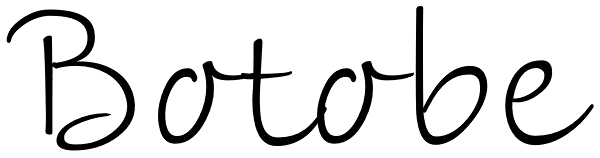
Botobe
Botobe is a new script from Swedish type designer Bo Berndal and the T4 font foundry. Botobe is a playful and friendly script that has lots of character. It gives text a genuine handwritten style and comes in two different cuts, regular and italic...
Botobe Italic